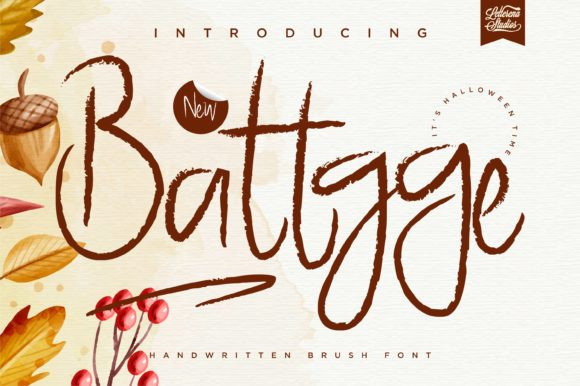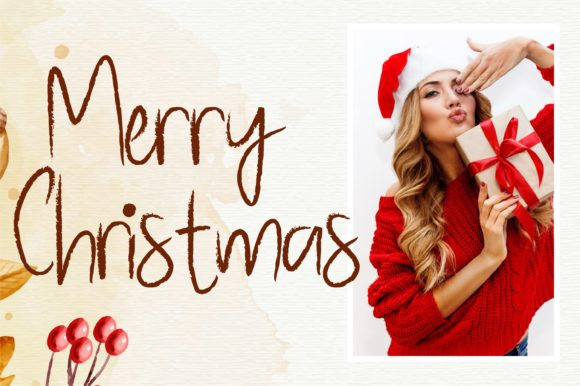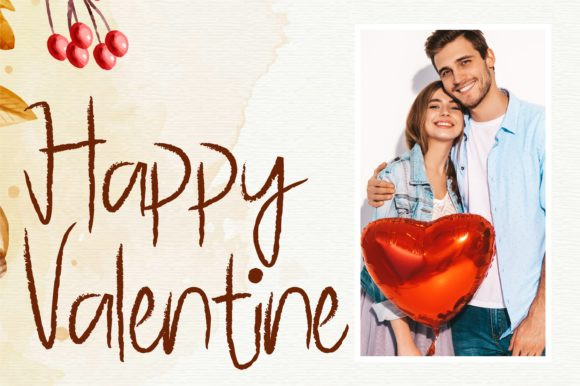
Battgge Font
Battgge is a brushed handwritten font, featuring a rough texture. It is the best choice for creating eye catching logos, branding and quotes.